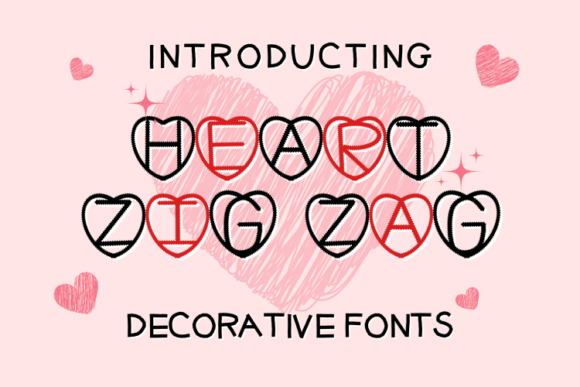
The Sweetest Font for Your Heartfelt Creations
Do you remember the feeling of excitement when you stumbled upon the perfect font to match your project’s theme? Maybe it was a quirky handwritten font for a wedding invitation or a bold sans-serif for a business logo. Whatever it was, you knew instantly that it was ‘the one.’
One such font that can evoke a similar sense of excitement is the Heart Zig Zag Font. This adorable font is a decorative delight that surrounds letters with hearts, making it perfect for Valentine’s Day-themed projects, love letters, and other sweet creations. Whether you’re designing a birthday card for your sweetheart or a poster for a charity event, the Heart Zig Zag Font is sure to add a touch of romance and whimsy to your work.
For designers, the Heart Zig Zag Font is a valuable asset in their toolkit, offering endless possibilities for creative expression and experimentation. With its playful, heart-filled design, it’s an ideal choice for projects that require a dash of personality and charm.
Key Features of Heart Zig Zag Font
- Font Type: Zig Zag, Distressed, and Hand-Drawn Font
- Unique Characteristics: Features a unique zig-zag design, distressed texture, and hand-drawn feel, making it perfect for creative and artistic projects
Heart Zig Zag Font Review
When I first laid eyes on the Heart Zig Zag Font, I was immediately drawn to its unique and playful design. ✨ The zig-zag pattern on the heart-shaped letters is a refreshing twist on traditional font styles. It adds a touch of whimsy and fun to any design project.
Here are some specific things that work well with this font:
- ✨ Unique and eye-catching design that sets it apart from other fonts
- ✨ Great for creating a playful and lighthearted atmosphere in designs
- ✨ Works well for titles, headings, and short text blocks
However, I do have some concerns about the limitations of this font:
- ⚠️ May not be suitable for long blocks of text due to its playful and irregular design
- ⚠️ Can be difficult to read in smaller sizes or at a distance
- ⚠️ Limited use cases due to its niche design
Overall, the Heart Zig Zag Font is a fun and creative option for designers who want to add a unique touch to their projects. While it has some limitations, it’s a great choice for titles, headings, and short text blocks where its playful design can shine.
The Heart Zig Zag Font is perfect for creating playful and whimsical designs. Use it for Valentine’s Day cards, birthday invitations, or any other occasion where you want to add a touch of romance and fun. You can also use it to create custom graphics and illustrations.